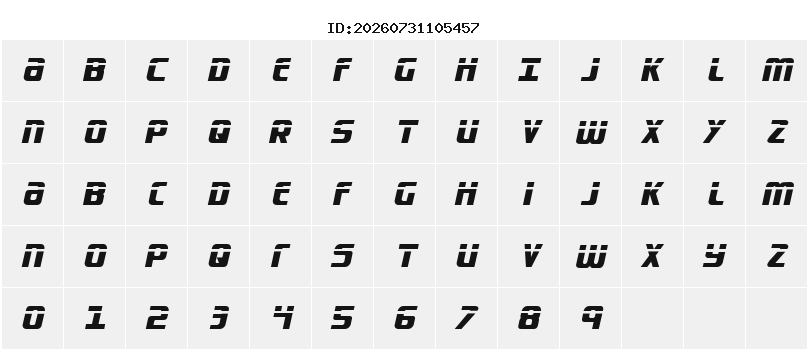
• Font Name: Lightsider Laser
About Lightsider Laser.ttf
Lightsider Laser.ttf is a modern, elegant sans-serif font designed for ultimate readability and visual harmony. Perfect for branding, headlines, web design, and print materials.